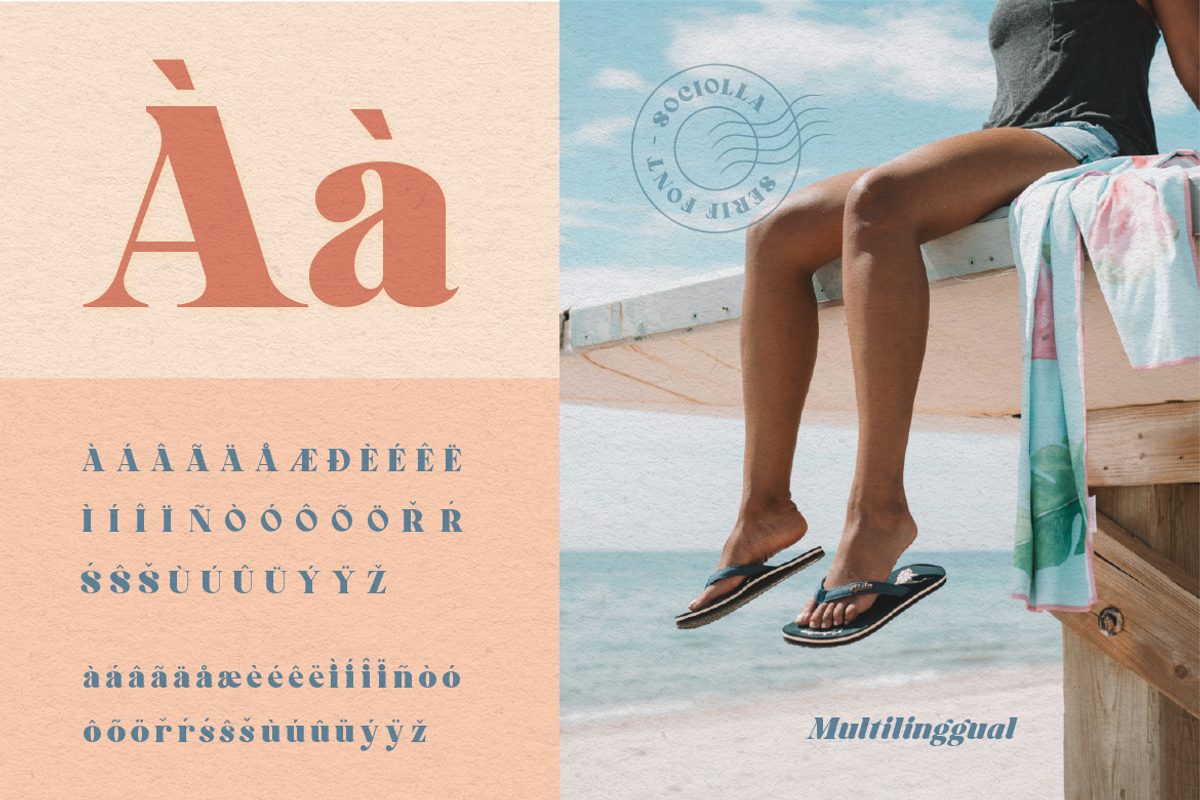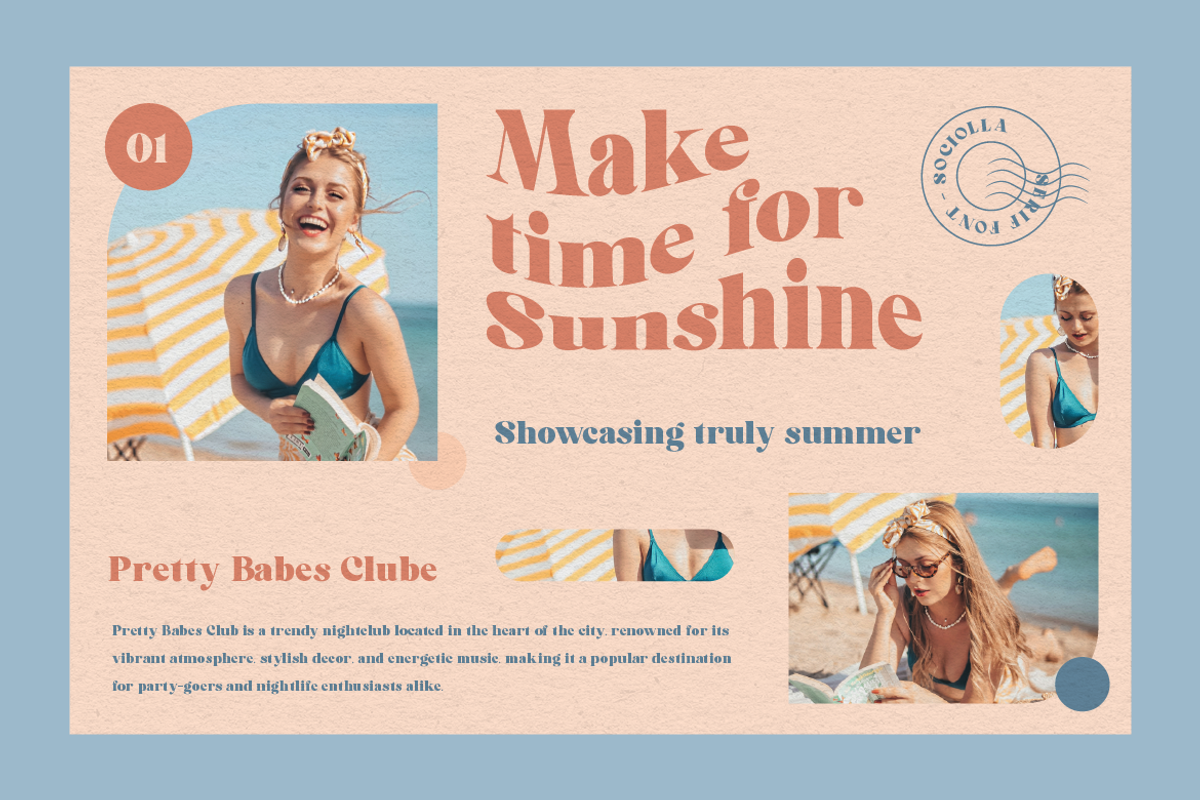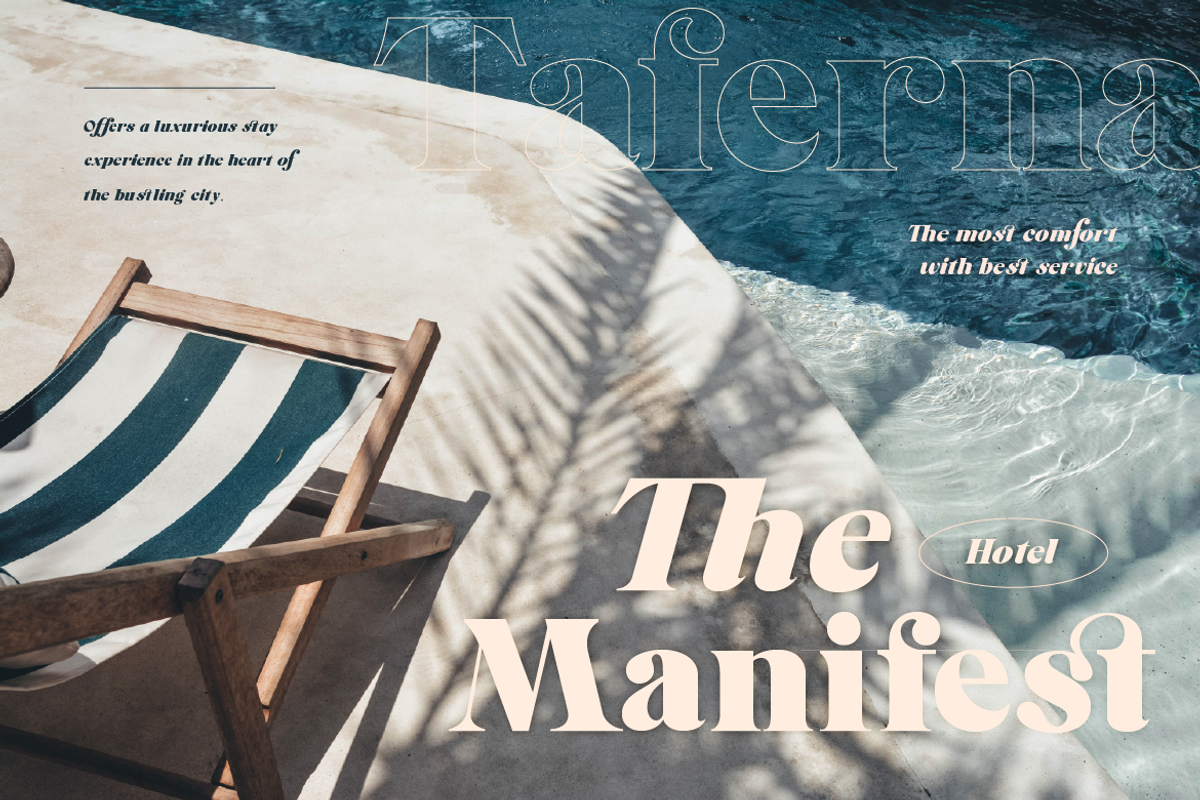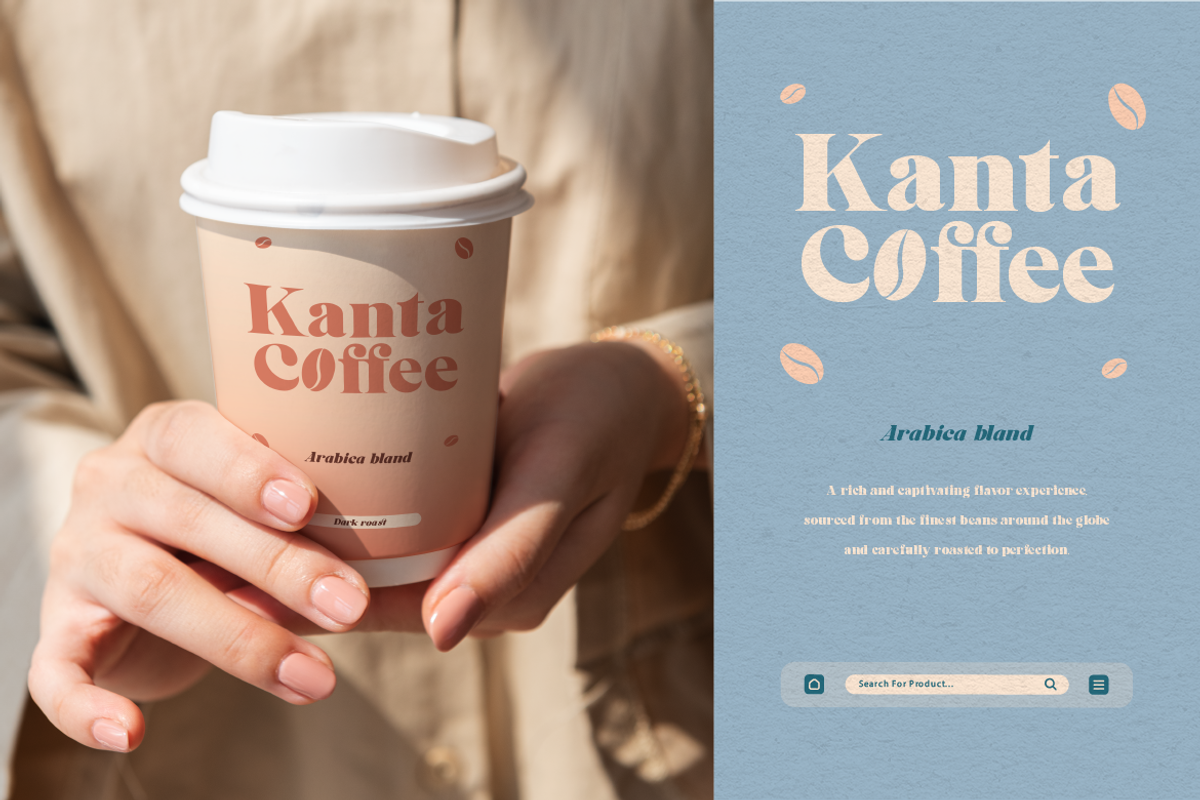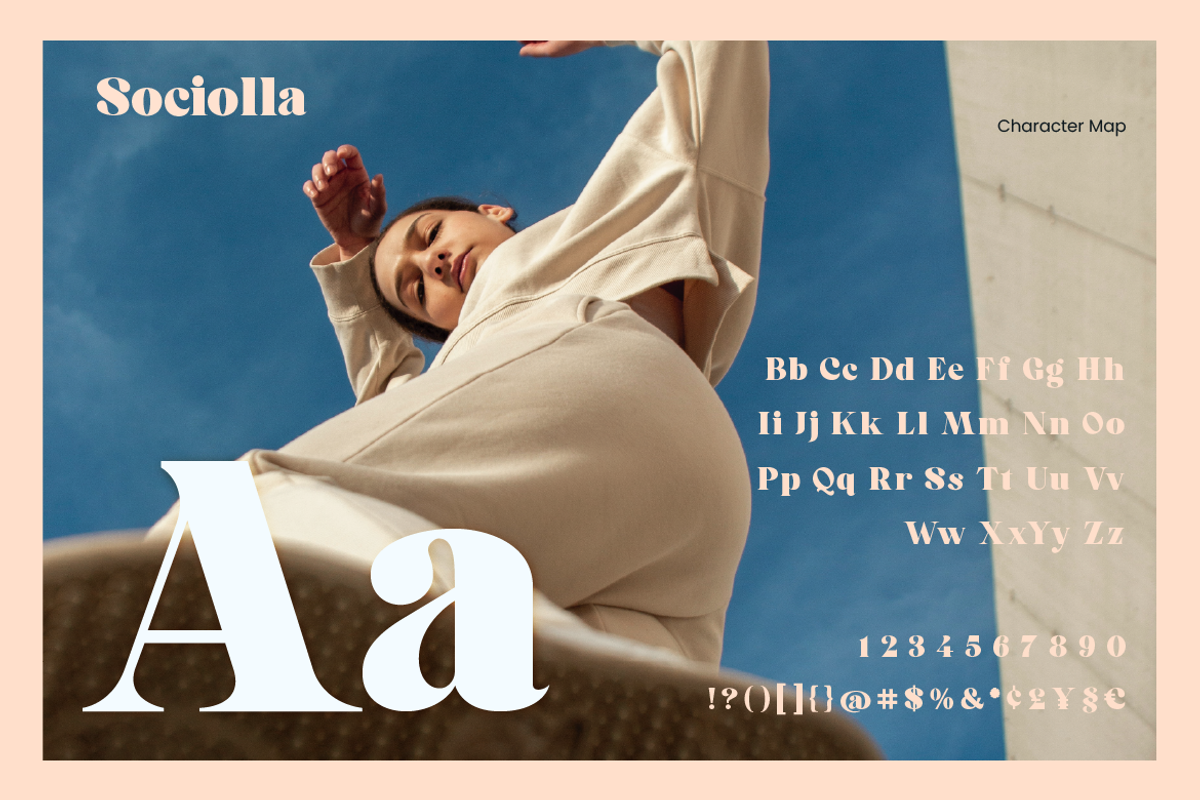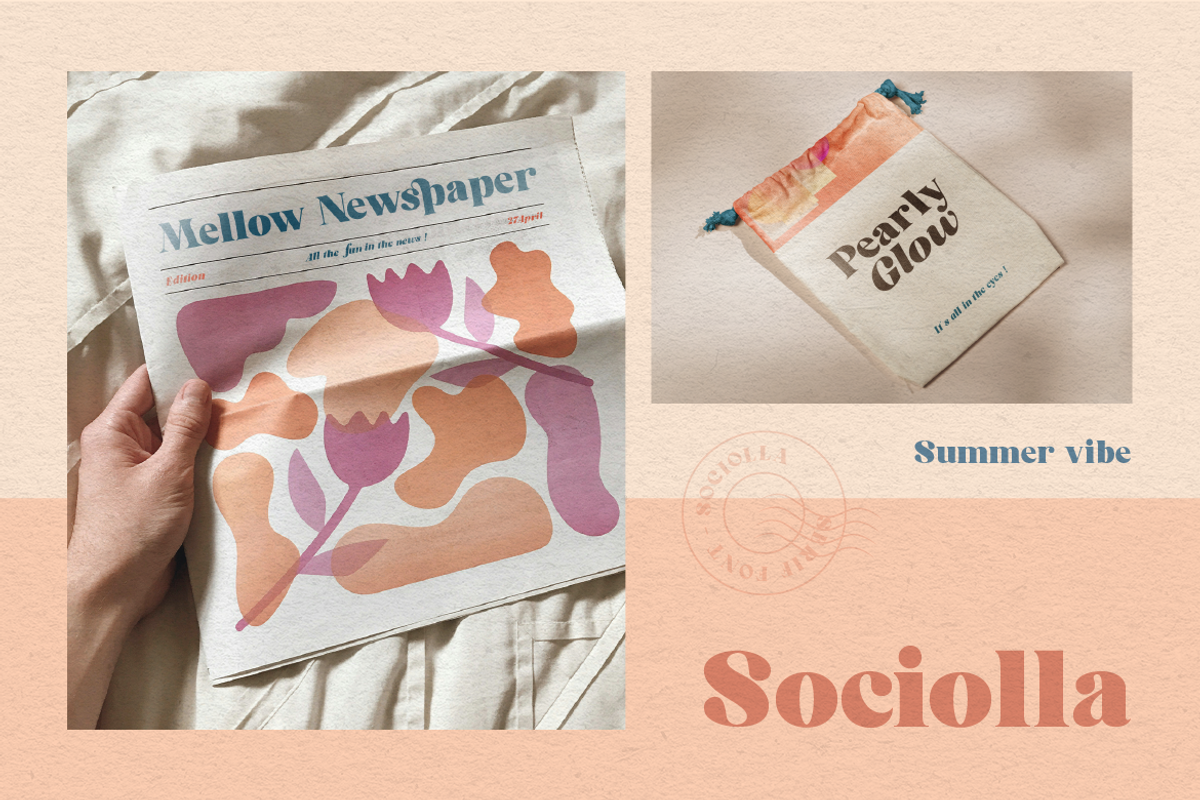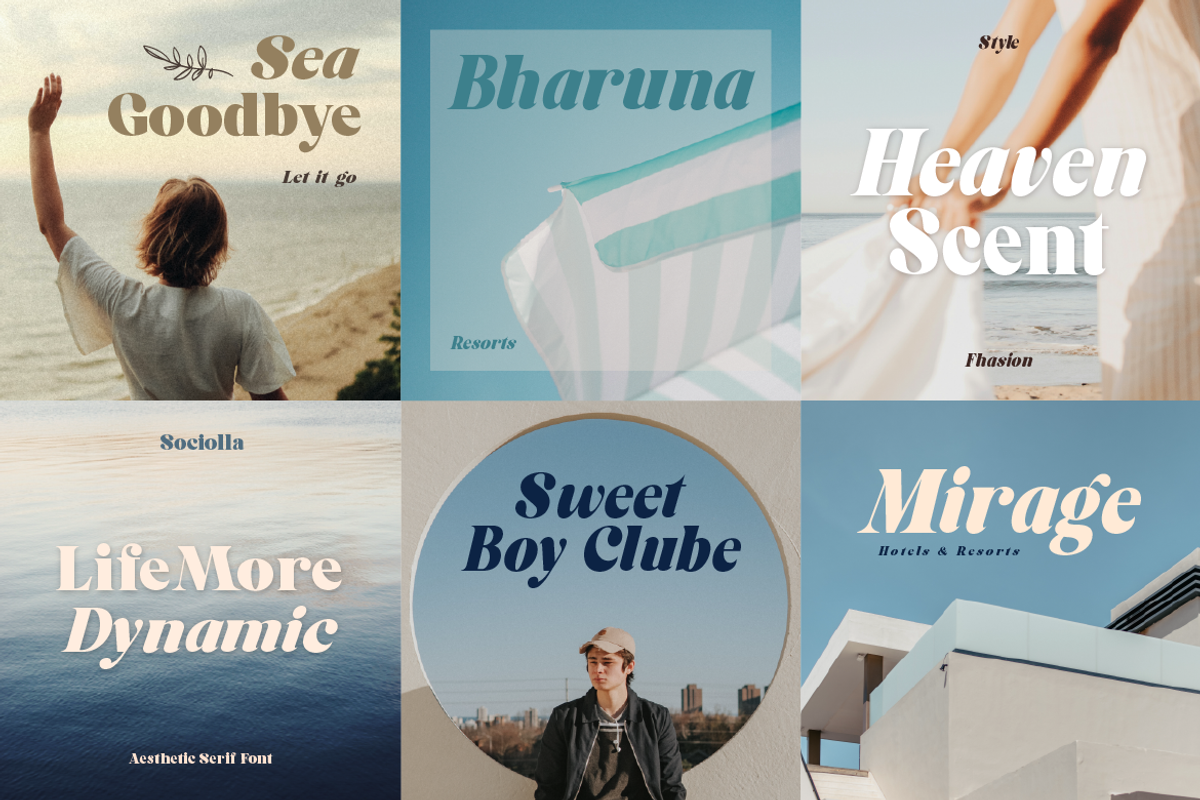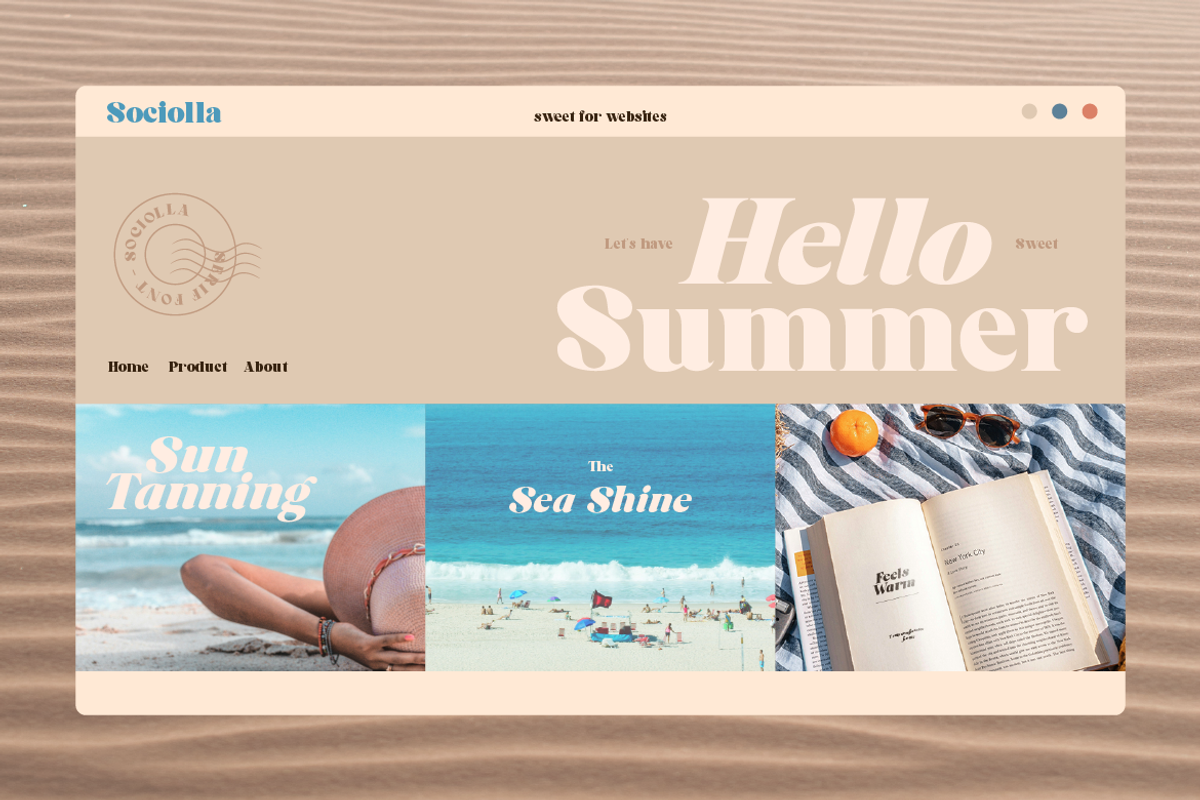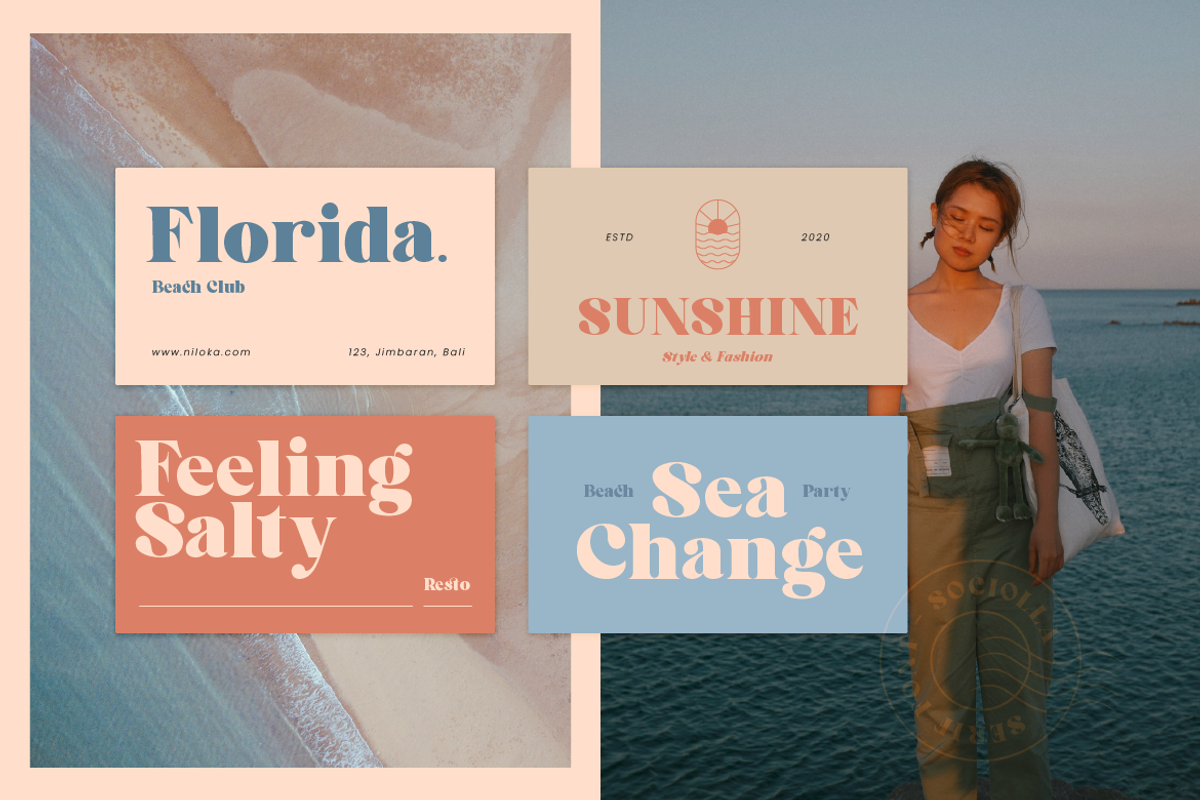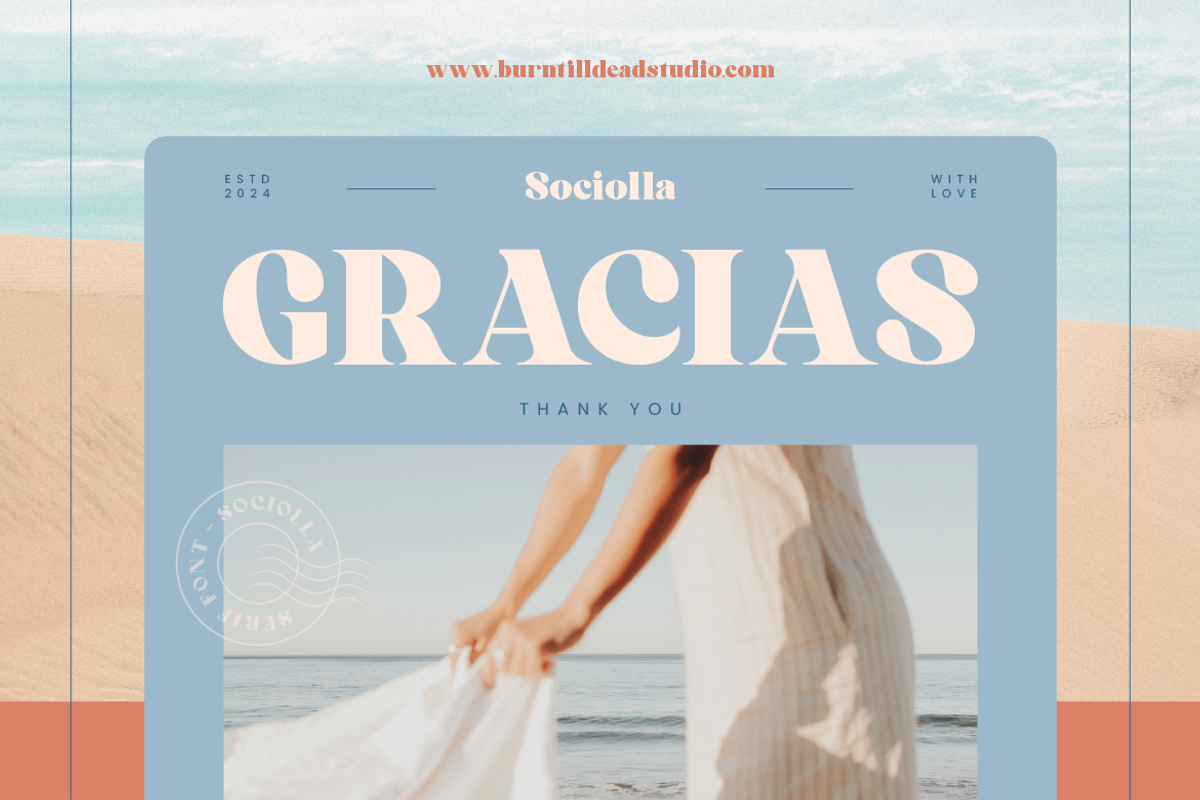
Sociolla
Say hello to ** Sociolla**, an aesthetic serif font. Between the thick and thin of this font, make this font looks fresh, clean, simple but still attractive, elegance and aesthetic. This font perfectly choice for branding, packaging product, tag product, magazine, marketing materials and any other design project. Sociolla is a serif font that every designer need to have!
A-Z characters (uppercase and lowercase)
Number
Punctuations
Ligature
Character maps